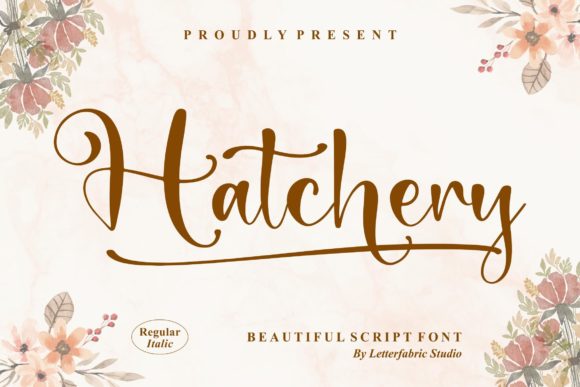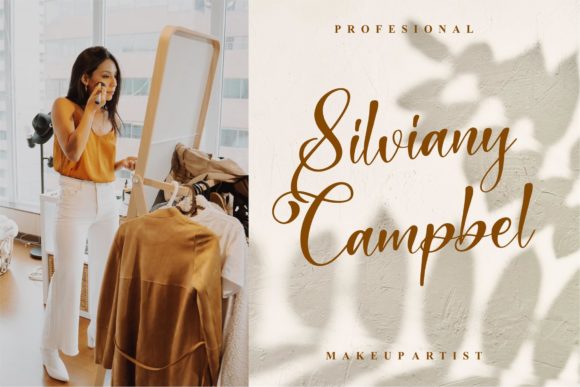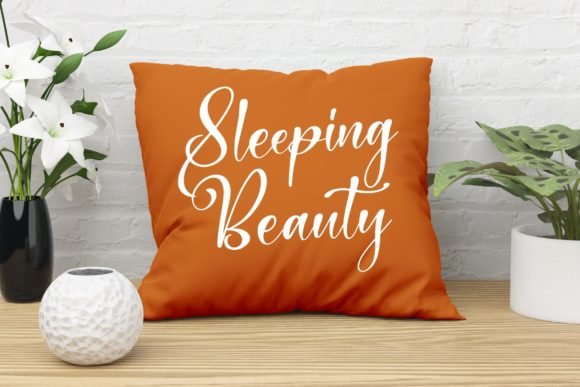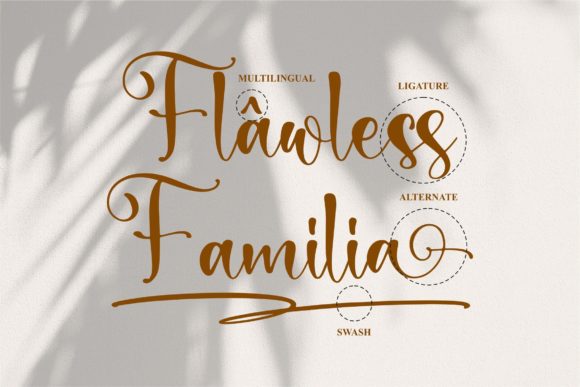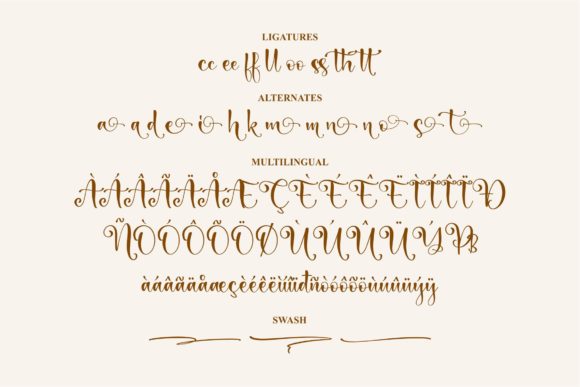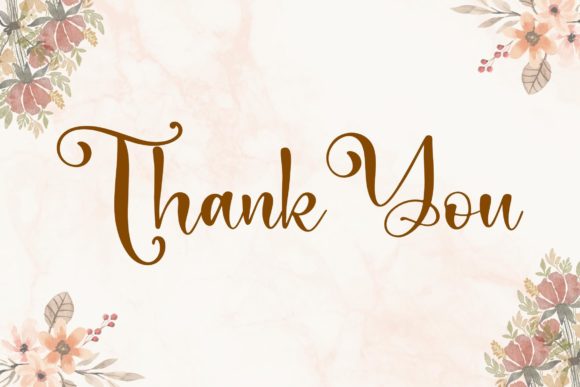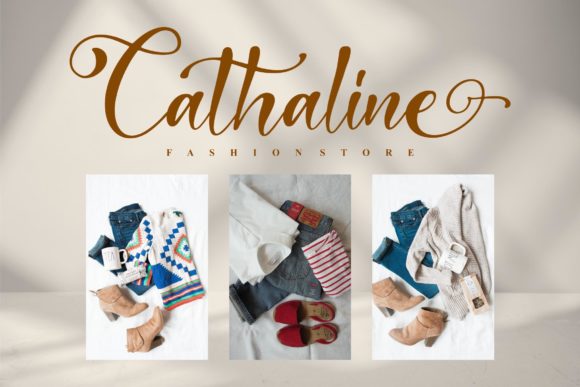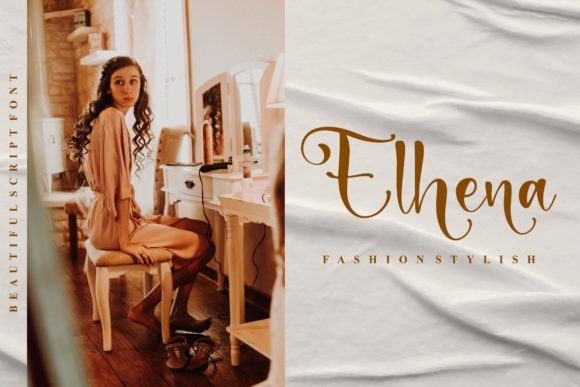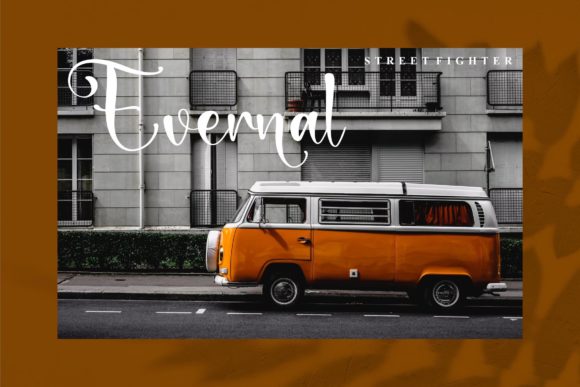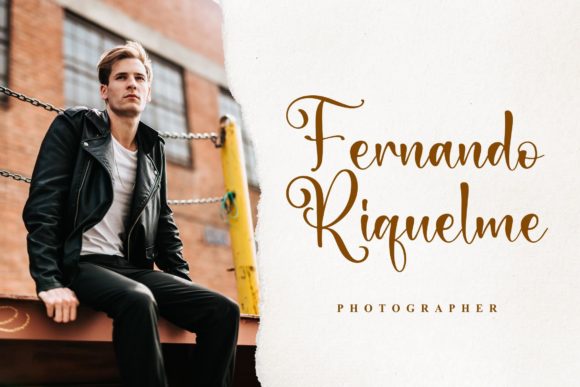
Hatchery Font
About Hatchery Font
Hatchery is a dazzling script font. It is neatly crafted and highly detailed. This font is PUA encoded which means you can access all of the amazing glyphs and ligatures with ease!